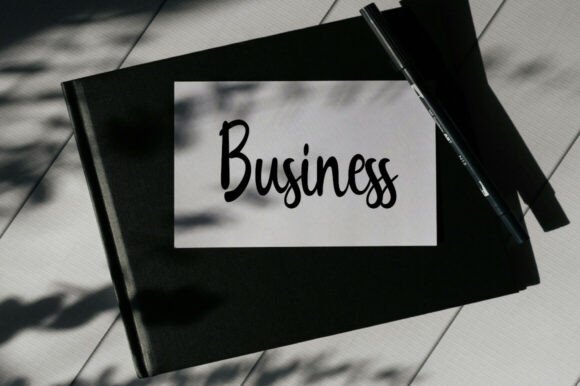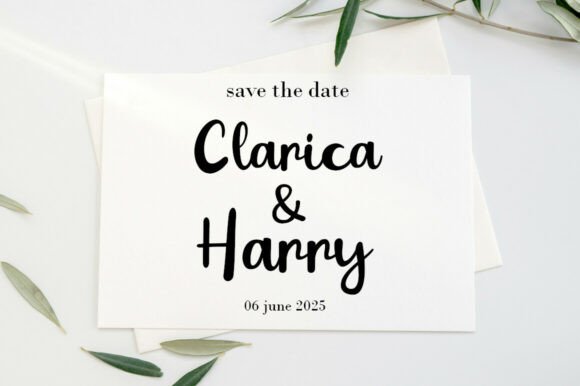
Get Ready to Fall in Love with the Hello Girl Font
Have you ever sat down at your desk, surrounded by blank sheets of paper and a sea of design possibilities, only to feel stuck and unsure of where to start? We’ve all been there, and it’s moments like these that make us yearn for the perfect font to bring our creative visions to life.
Enter the Hello Girl Font, a modern script font designed by Mars Creative that’s sure to capture the whimsy and charm of your next design project. With its fluid, hand-lettered strokes and enchanting star-themed ligatures, this font is perfect for adding a touch of magic to your branding, logo designs, and social media graphics.
Whether you’re a seasoned designer or just starting out, the Hello Girl Font is a valuable addition to your toolkit. Its smooth, dancing baseline adds a sense of joy and movement to any layout, making it perfect for crafting personalized stationery, birthday invitations, and more.
Hello Girl Font Key Features
- Unique Characteristics: This font features a playful, cursive script with elegant swashes and flourishes, making it perfect for creating eye-catching headings and titles.
- Font Style: The font comes in two styles: Regular and Script, allowing users to choose the perfect style to suit their design needs.
Hello Girl Font Review
I recently had the chance to work with the Hello Girl Font, and I must say it’s a mixed bag. On the one hand, it has some great qualities that make it a great addition to any project. ✨
- Unique charm: The Hello Girl Font has a certain whimsical charm that’s perfect for projects that need a touch of personality.
- Legibility: The font is well-designed and easy to read, making it suitable for a wide range of applications.
- Expressiveness: The font has a lot of expressive power, allowing you to convey a range of emotions and moods.
However, there are also some limitations to consider. ⚠️
- Limited versatility: While the font is great for projects that need a touch of whimsy, it may not be the best choice for more formal or serious applications.
Overall, I think the Hello Girl Font is a great addition to any designer’s toolkit, but it’s not a one-size-fits-all solution. With some careful consideration of the project’s requirements, it can be a real game-changer. But if you’re looking for a more versatile or formal font, you may want to look elsewhere.
Hello Girl Font Practical Application Guide
Tips: Use the Hello Girl font for titles and headings to add a touch of femininity to your design. Experiment with different font sizes and colors to create a unique look.
Tips: Use the Hello Girl font for custom typography projects or to create a vintage-inspired design. Experiment with layer blending modes and effects to add depth to your text.
Tips: Use the Hello Girl font for presentations or documents that require a touch of elegance. Experiment with different font sizes and colors to create a professional look.
The Hello Girl font is ideal for:
- Baby and bridal showers
- Women’s fashion and beauty branding
- Vintage-inspired designs
- Custom typography projects
Alternatives to Hello Girl Font
Great Vibes Font is a beautiful, modern script font perfect for adding a touch of elegance and sophistication to your designs. It is ideal for use in wedding invitations, branding, and other creative projects where a unique, handwritten feel is desired. Compared to Hello Girl Font, Great Vibes Font has a more refined and polished look, making it a great choice for high-end designs.
Pacifico Font is a stunning, cursive font that exudes a sense of relaxation and calmness. It is perfect for use in beach-themed designs, wellness branding, and other projects where a soothing, natural feel is desired. Compared to Hello Girl Font, Pacifico Font has a more laid-back and casual vibe, making it a great choice for designs that require a relaxed atmosphere.